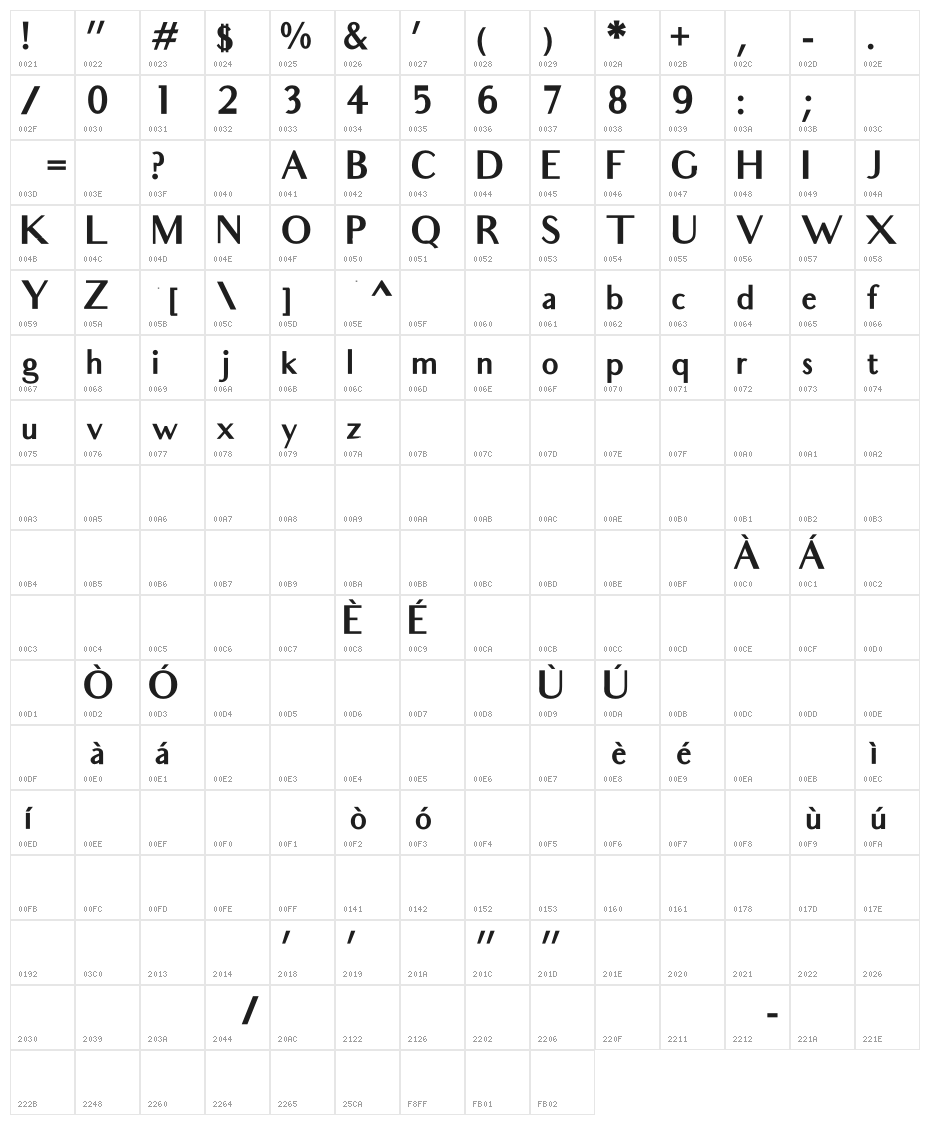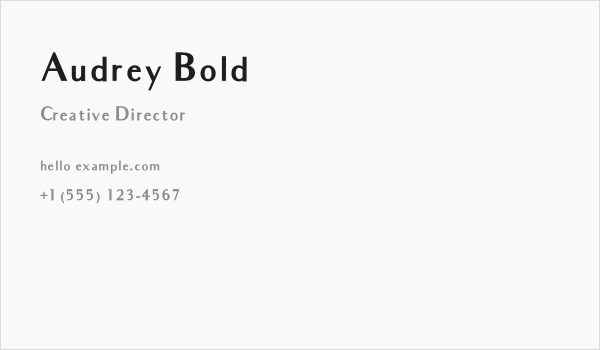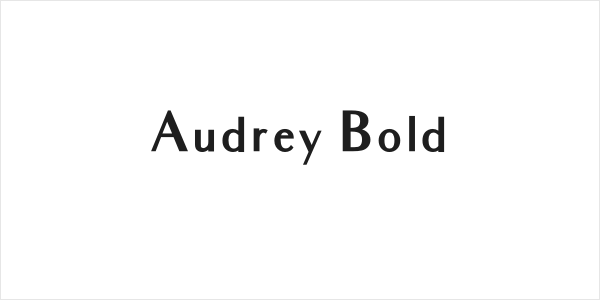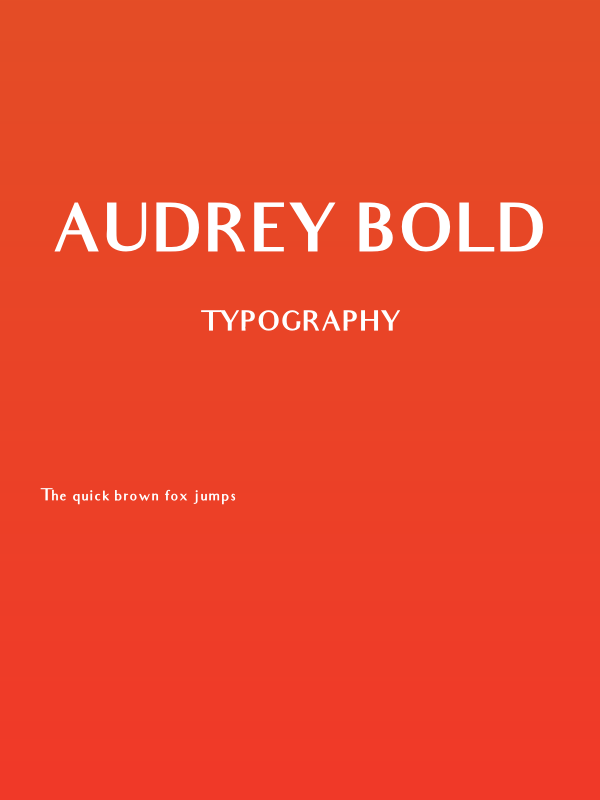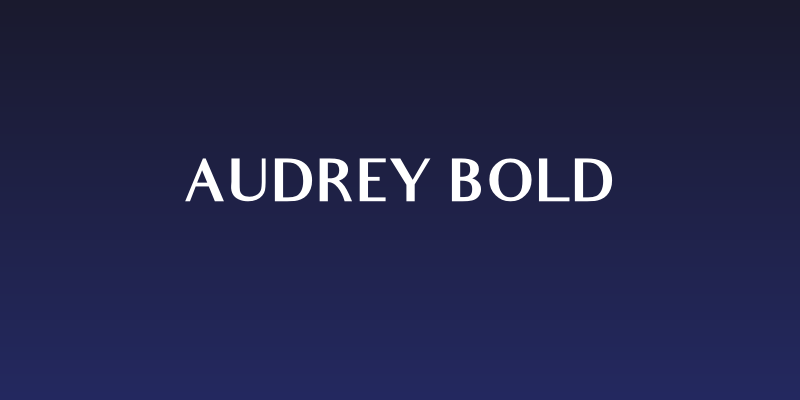
Audrey Bold Font
Audrey Bold Description
This font exhibits a clean and modern aesthetic with a bold weight, making it highly suitable for impactful headlines and titles. The characters are well-defined with a consistent stroke width, contributing to its legibility and clarity. The uppercase letters are slightly taller than average, giving a sense of authority and presence. The lowercase letters maintain a harmonious balance with the uppercase, featuring rounded edges that soften the overall look. The numerals are straightforward and align well with the alphabetic characters, ensuring uniformity across different text elements. Special characters are designed with the same attention to detail, ensuring they integrate seamlessly with the rest of the font.